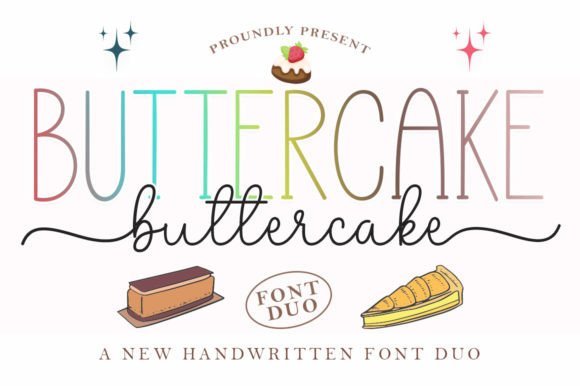
The Perfect Blend: Unlocking the Power of the Butter Cake Duo Font
Have you ever stared at a blank page, pen in hand, searching for the perfect words to express your emotions? For designers, this moment is all too familiar – the quest for the perfect font to convey the essence of a message. It’s in these moments that the Butter Cake Duo Font shines, offering a harmonious balance of elegance and versatility.
This beautifully crafted duo font seamlessly blends the clean lines of sans serif with the romantic flair of script, making it an ideal choice for a wide range of creative projects. With its PUA encoding, designers can easily access a vast array of glyphs and ligatures, ensuring a seamless integration into any design backdrop. Whether you’re crafting a heartfelt greeting card or a captivating headline, the Butter Cake Duo Font is sure to add a touch of magic to your creations.
- Unique Characteristics: Duo font design with two distinct font styles that can be used together or separately
Butter Cake Duo Font Review
I recently had the chance to work with the Butter Cake Duo Font, and I have to say, it’s been an interesting experience. There are some aspects of this font that I really like, while others leave me wanting more.
- Unique and playful design: The Butter Cake Duo Font has a fun and quirky vibe that can add a lot of personality to your designs.
- Good for creative projects: I found this font to be perfect for projects that require a more lighthearted tone, such as children’s books, food labels, or social media graphics.
- Good legibility: Despite its playful nature, the font is still easy to read, which is essential for effective communication.
- Limited versatility: While the font is great for creative projects, it may not be the best choice for more formal or professional designs.
- Not suitable for small font sizes: At smaller sizes, the font can become difficult to read, which may be a problem for certain applications.
- Lack of bold weights: I found the font’s bold weight to be a bit lacking, which may limit its use in certain situations.
Overall, I think the Butter Cake Duo Font is a great addition to any designer’s toolkit. While it may have its limitations, it’s perfect for the right project. With its unique design and good legibility, it’s sure to add some personality to your work.
Use the Butter Cake Duo Font for bakery-themed designs, food packaging, and restaurant branding.
Combine the font with matching illustrations or graphics for a cohesive look.